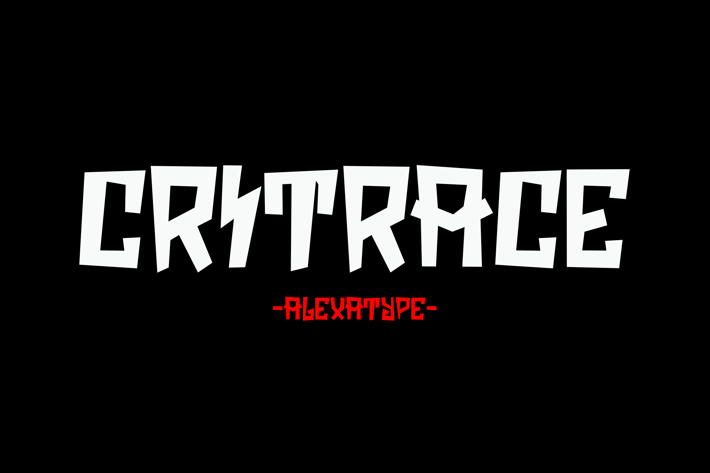
Critrace - Energetic Display Font
Critrace is a raw, high-impact display font designed for rebellious branding, adrenaline-fueled sports visuals, and cutting-edge cyber aesthetics. With its sharp angles, blocky letterforms, and aggressive stance, this font commands attention in gaming, tech branding, and underground streetwear. Whether you’re creating punk-inspired posters, esports graphics, or high-energy advertising, Critrace delivers an unstoppable force of motion and power.
Key Features
Bold, High-Impact Lettering – Designed for dominance in posters, branding, and merchandise.
Edgy & Futuristic Aesthetic – Perfect for cyberpunk, dystopian, and tech-driven designs.
No-Nonsense, Rebellious Energy – Suited for alternative music covers, action sports, and street culture.
Versatile for Print & Digital – Works on apparel, gaming overlays, and dynamic branding.
Critrace is made for risk-takers, rule-breakers, and brands that thrive on intensity. Its rebellious letterforms add raw energy to esports branding, extreme sports campaigns, and industrial tech promotions. Whether used in futuristic event posters, energy drink packaging, or cyber-inspired typography, Critrace ensures your message hits hard and fast.